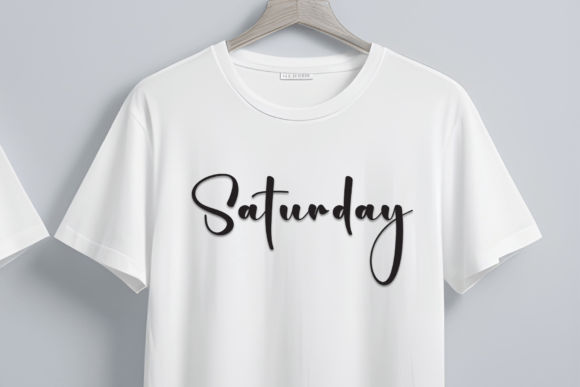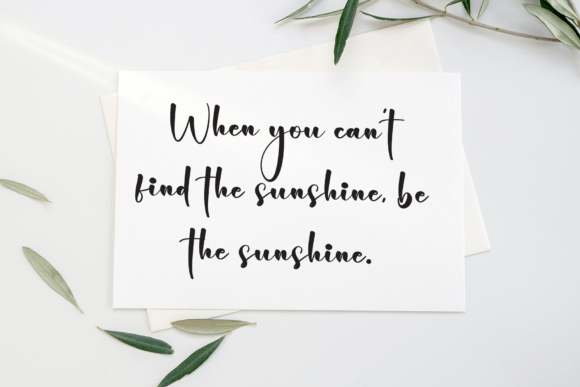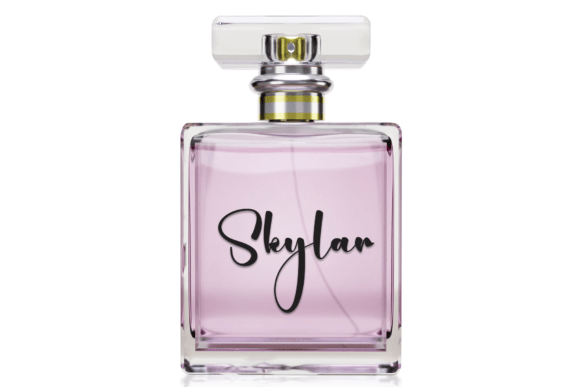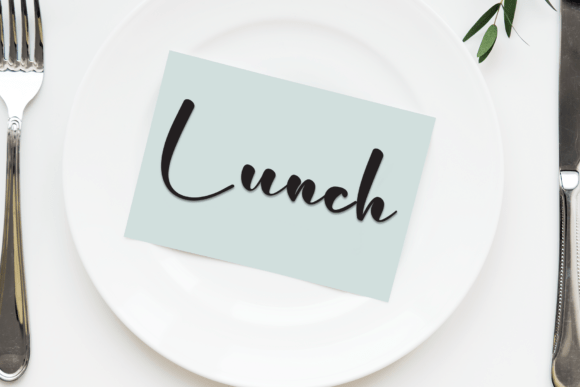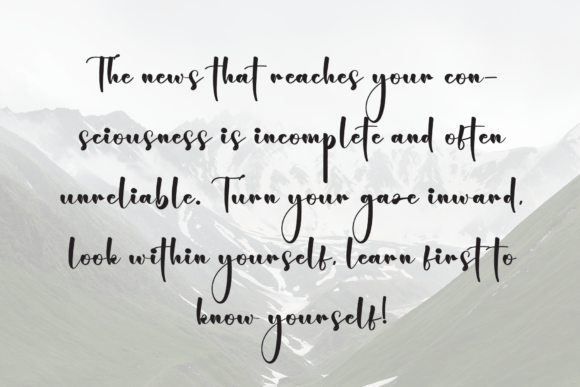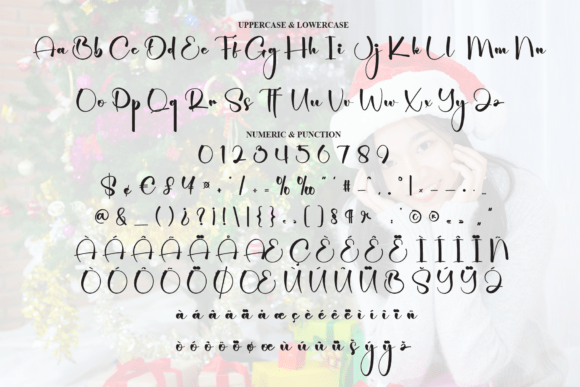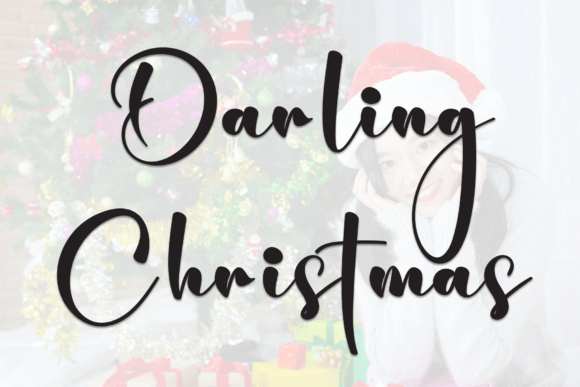
Introducing Darling Christmas Font: Elevate Your Designs with Elegant Script Style
Are you searching for a font that adds a touch of sophistication and artistic flair to your designs? Look no further than the Darling Christmas font. This stylish script font is perfect for designers and crafters who want to create visually stunning projects that exude contemporary elegance. In this article, we’ll explore the features and benefits of Darling Christmas, and how it can elevate your designs to the next level.
What is Darling Christmas Font?
Darling Christmas is a modern script font that boasts fluid brush strokes, dynamic curves, and expressive letterforms. Its unique design captures the essence of hand-painted calligraphy with a modern twist, making it perfect for a wide range of design applications. Whether you’re creating logos, invitations, packaging, or social media graphics, Darling Christmas adds a creative and sophisticated touch to any design.
Key Features of Darling Christmas Font
• Fluid Brush Strokes: Darling Christmas features fluid brush strokes that give it a natural, hand-painted look.
• Dynamic Curves: The font’s dynamic curves add a touch of elegance and sophistication to any design.
• Expressive Letterforms: Each letterform is uniquely designed to convey a sense of artistic flair and creativity.
• Modern Twist: Darling Christmas combines traditional calligraphy with modern design elements to create a truly unique font.
Benefits of Using Darling Christmas Font
So, why choose Darling Christmas for your design projects? Here are just a few benefits of using this versatile font:
• Visual Impact: Darling Christmas delivers both visual impact and versatility, making it perfect for a wide range of design applications.
• Creative Freedom: With its unique design and expressive letterforms, Darling Christmas gives you the creative freedom to experiment with different design styles and ideas.
• Sophisticated Look: The font’s elegant script style adds a touch of sophistication to any design, making it perfect for high-end branding and marketing materials.
Design Applications for Darling Christmas Font
Darling Christmas is a versatile font that can be used in a variety of design applications, including:
• Logos: Create a memorable and stylish logo for your business or brand with Darling Christmas.
• Invitations: Add a touch of elegance and sophistication to your invitations with this beautiful script font.
• Packaging: Use Darling Christmas to create eye-catching packaging that stands out on store shelves.
• Social Media Graphics: Elevate your social media graphics with Darling Christmas, and add a creative and sophisticated touch to your online presence.
Tips for Using Darling Christmas Font
Here are a few tips for getting the most out of Darling Christmas:
• Experiment with Different Sizes: Darling Christmas looks great in a variety of sizes, so don’t be afraid to experiment with different font sizes to achieve the desired effect.
• Pair with Other Fonts: Try pairing Darling Christmas with other fonts to create a unique and visually appealing design.
• Use in Combination with Images: Darling Christmas looks great in combination with images, so try using it to add a touch of elegance and sophistication to your design.